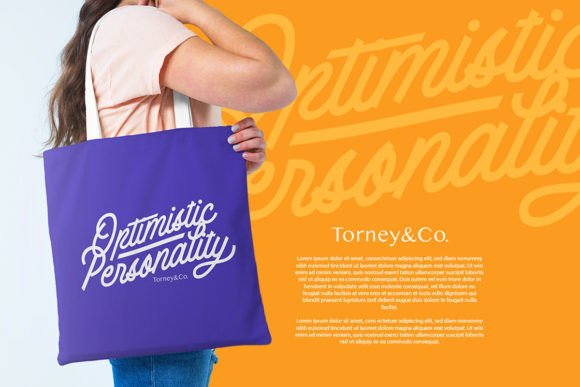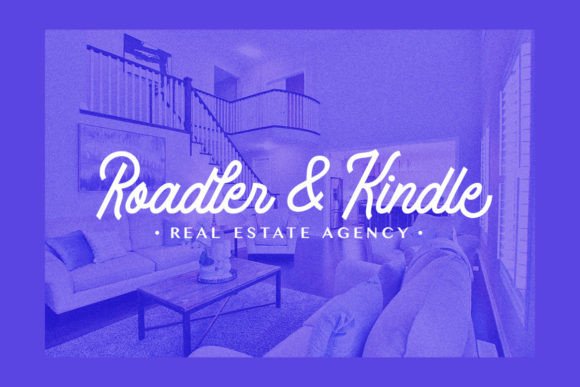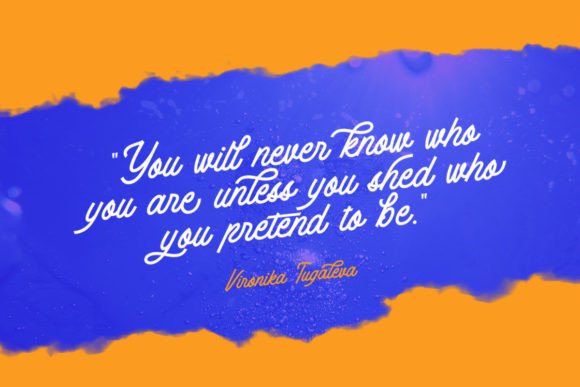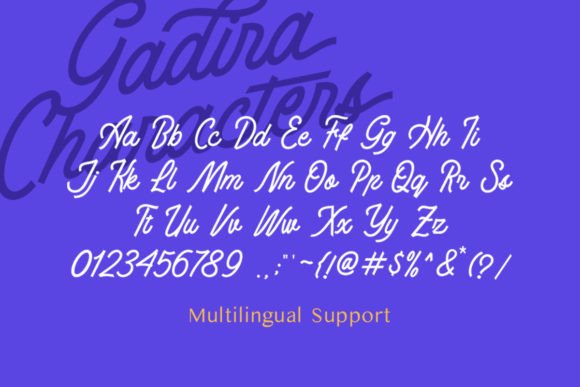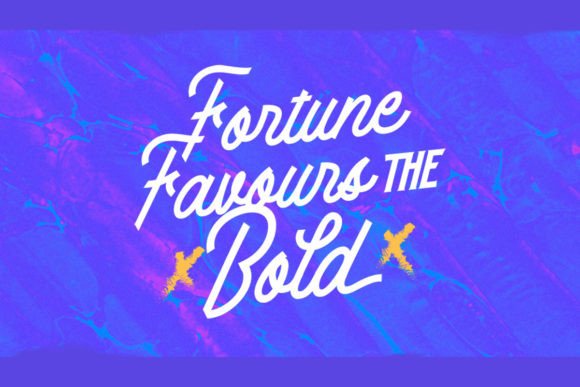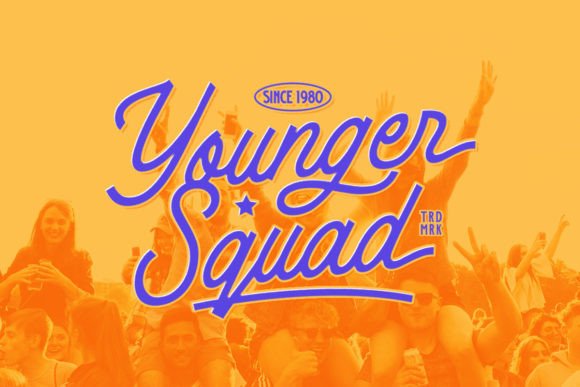
Introduction to Gadira Font
Gadira is a casual and stylish script display font.
Add it to your most creative ideas, and notice how it transforms them into authentic pieces of art .
Key Features of Gadira Font